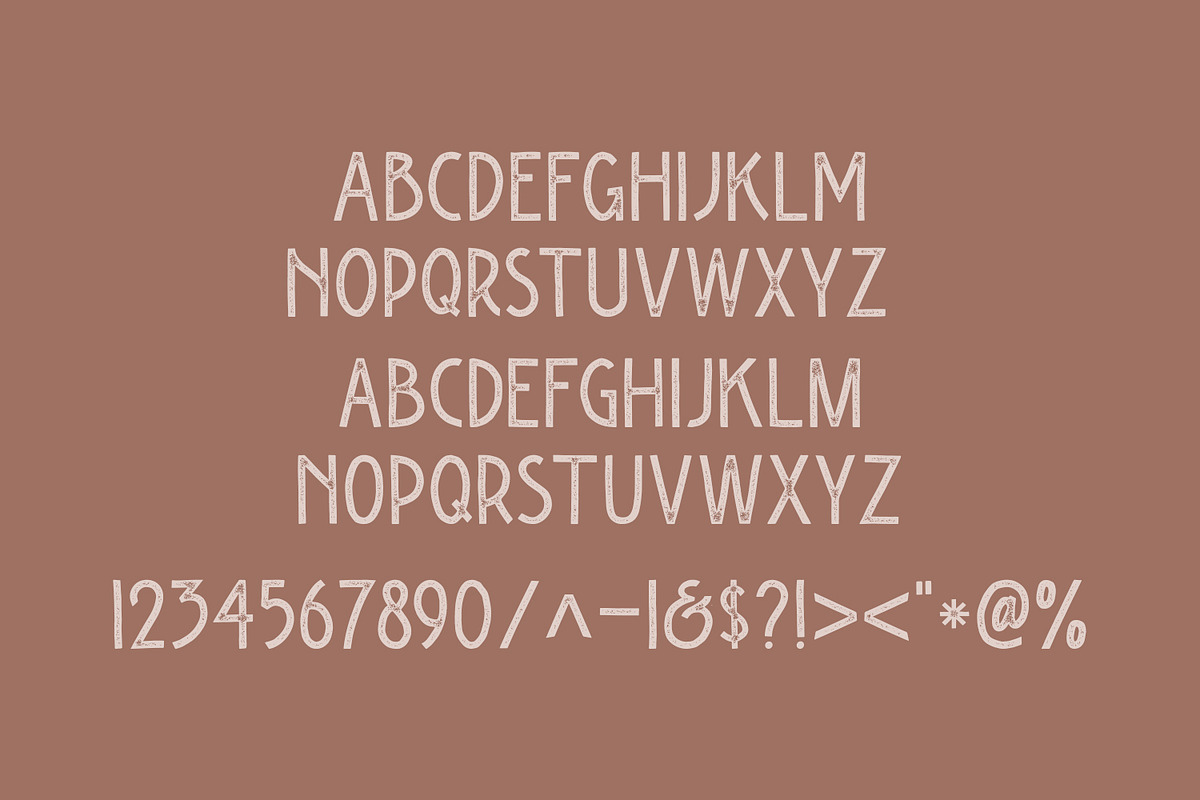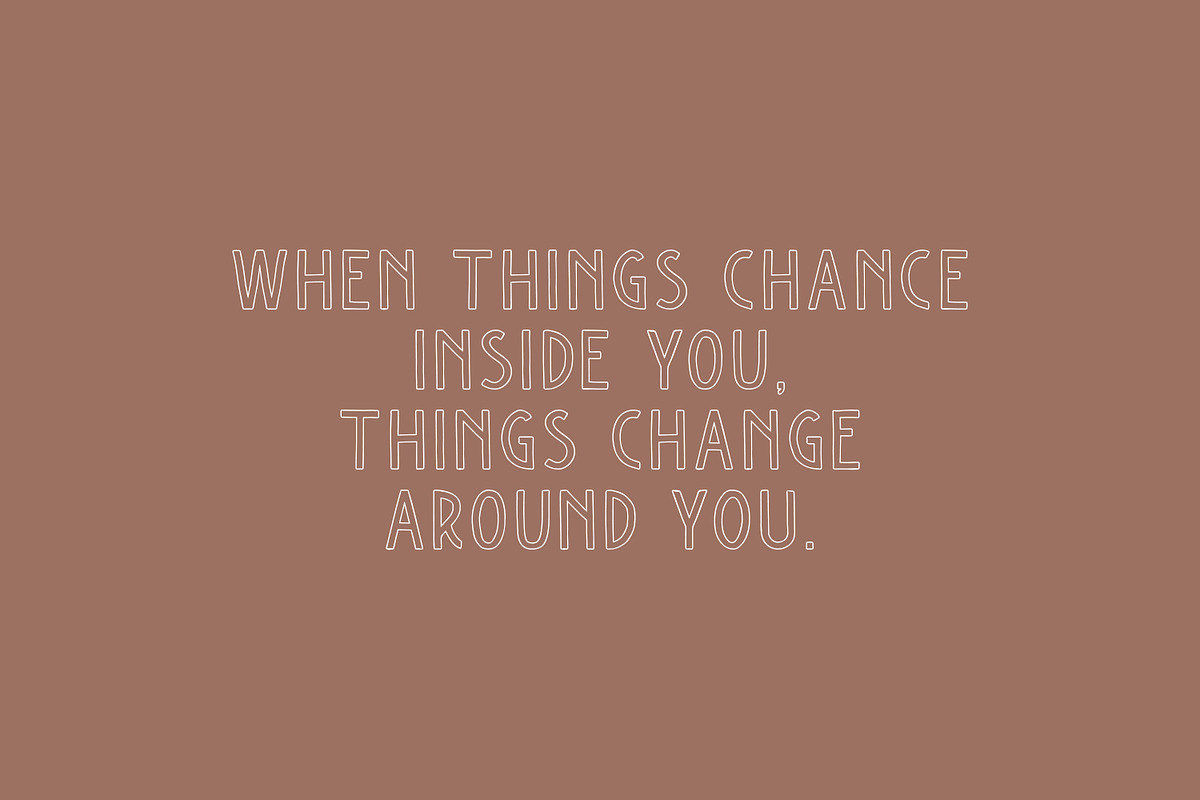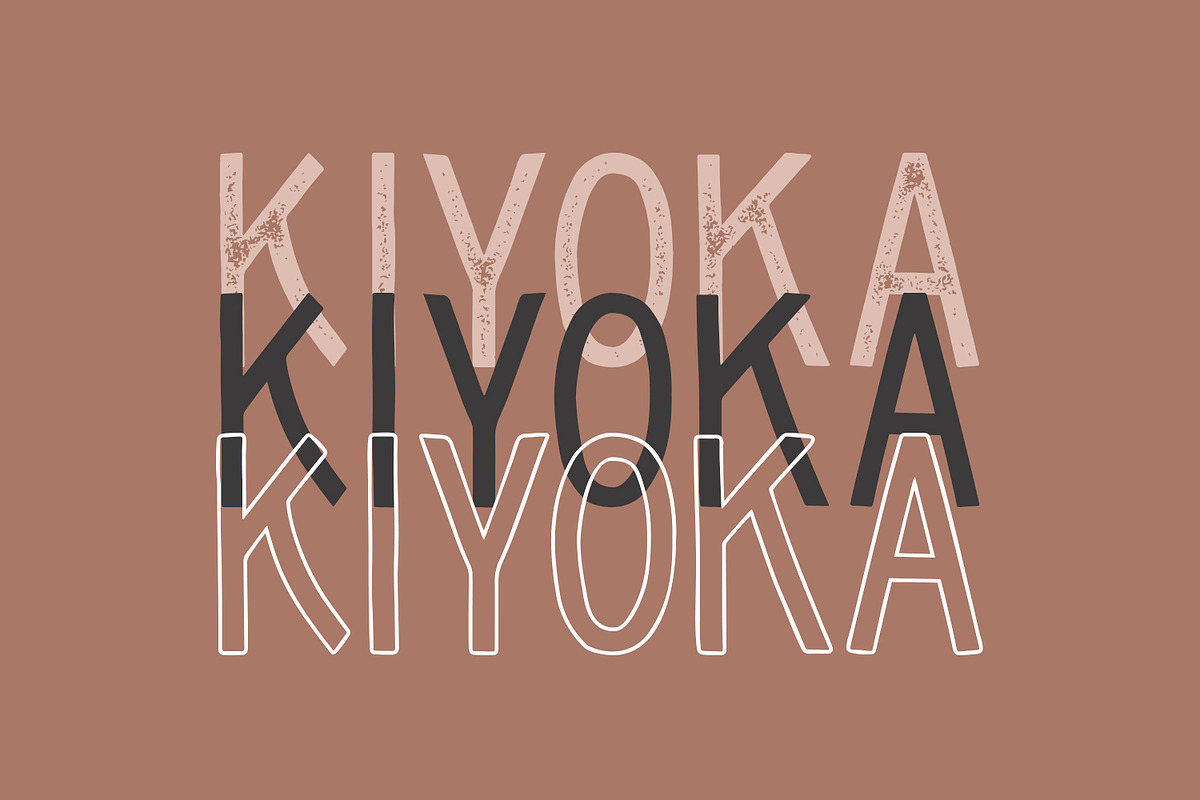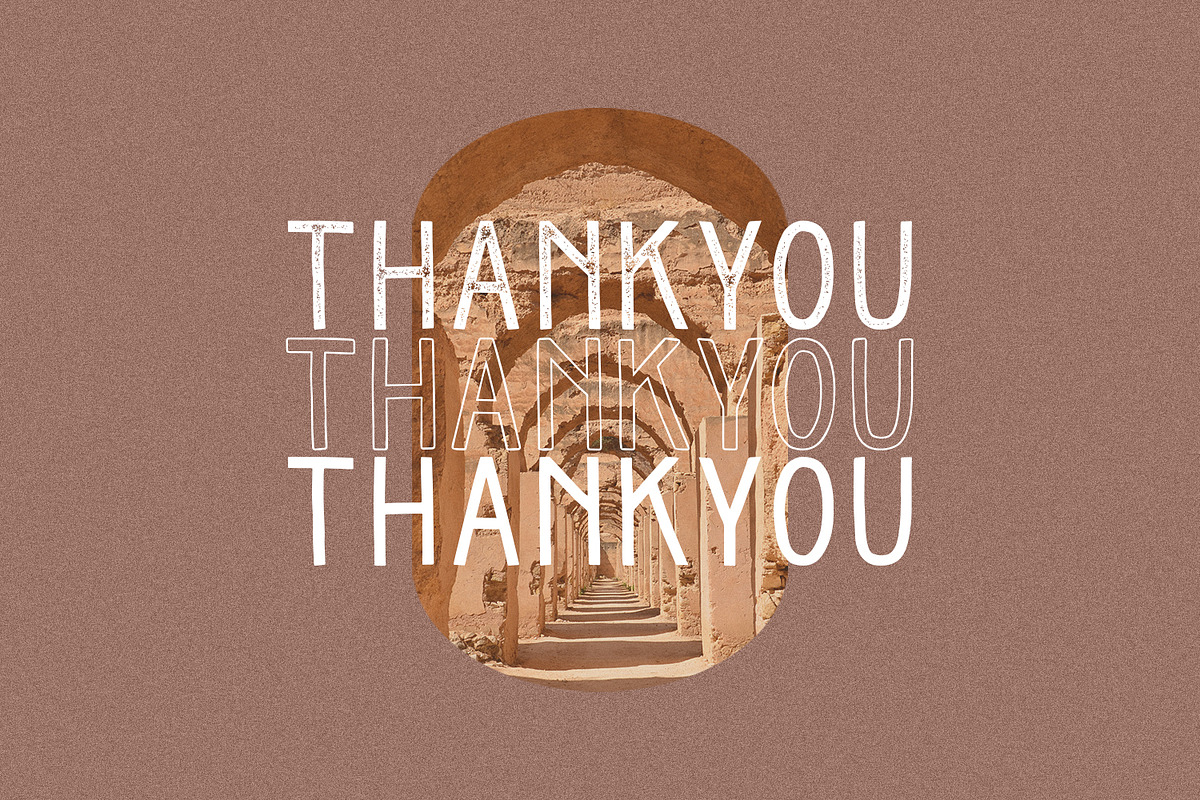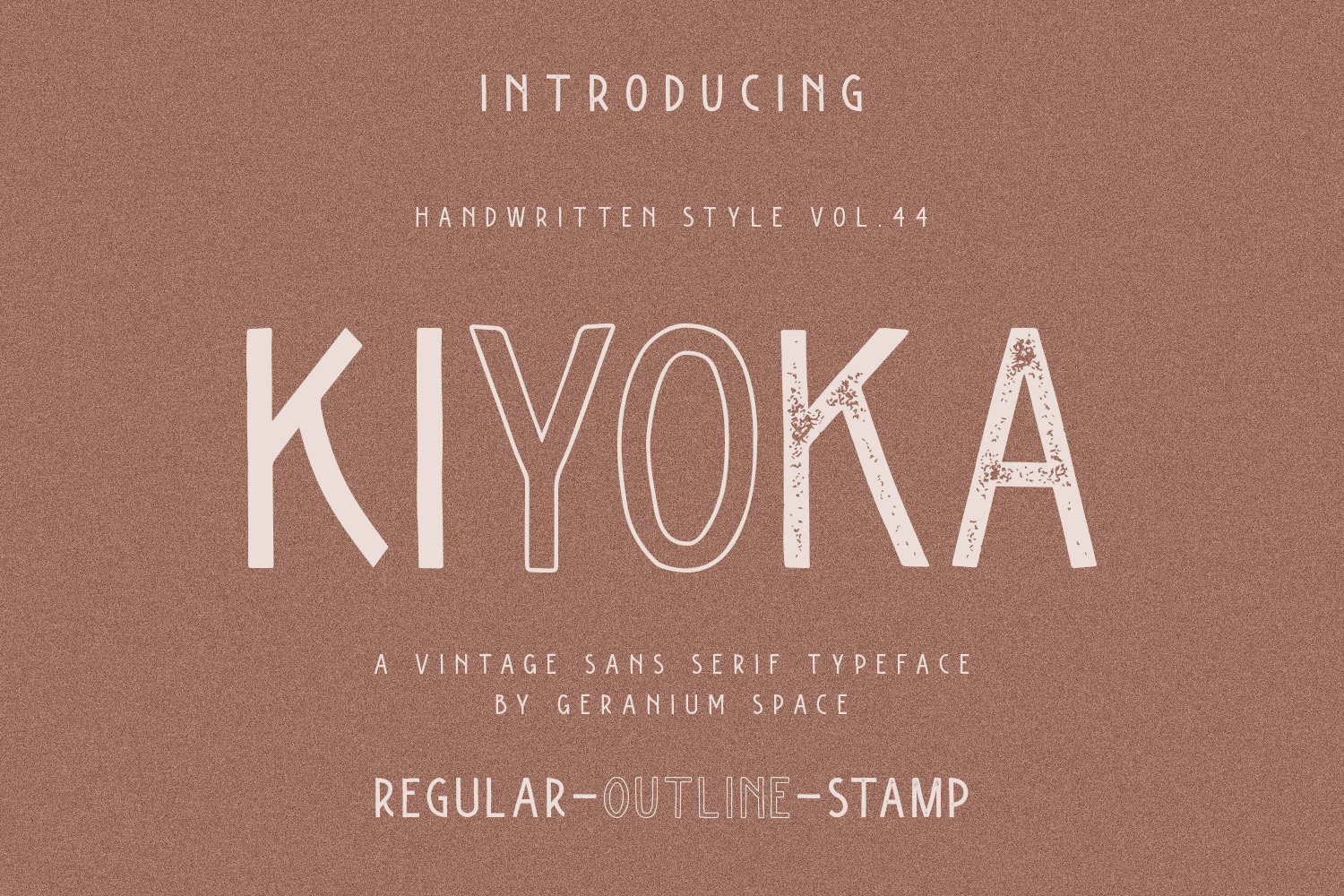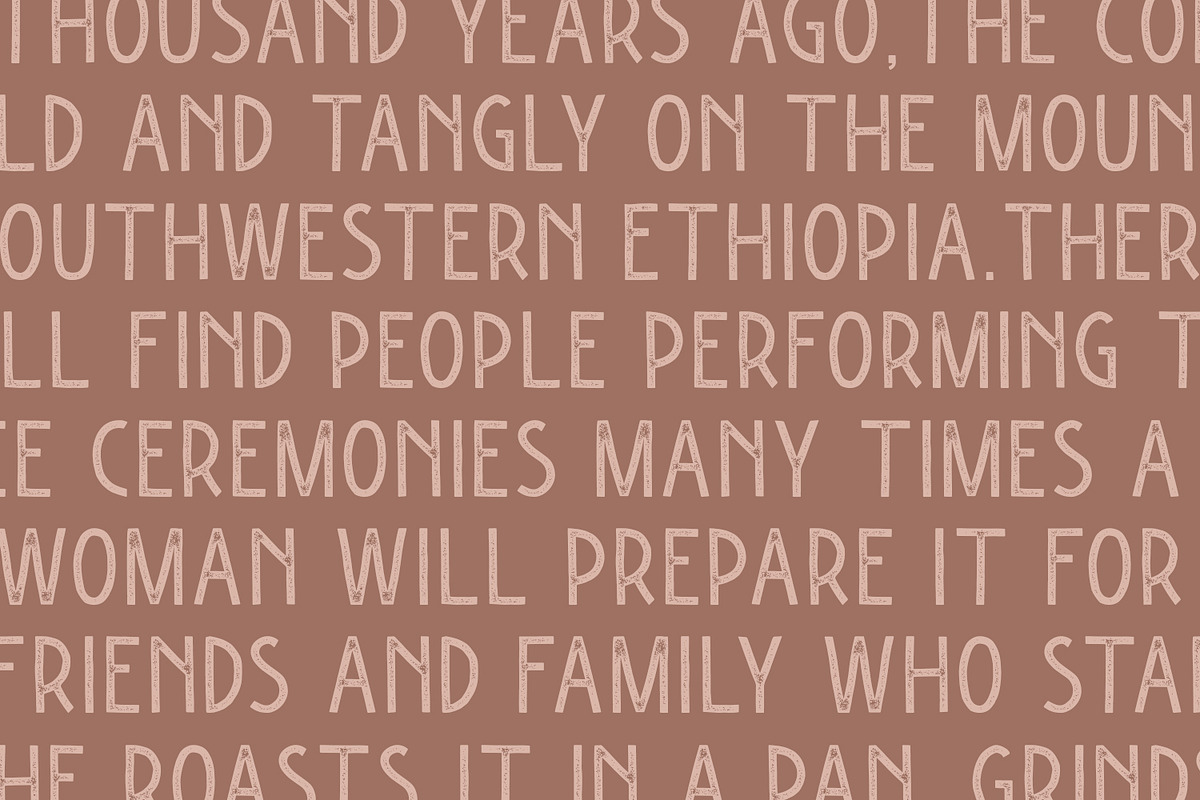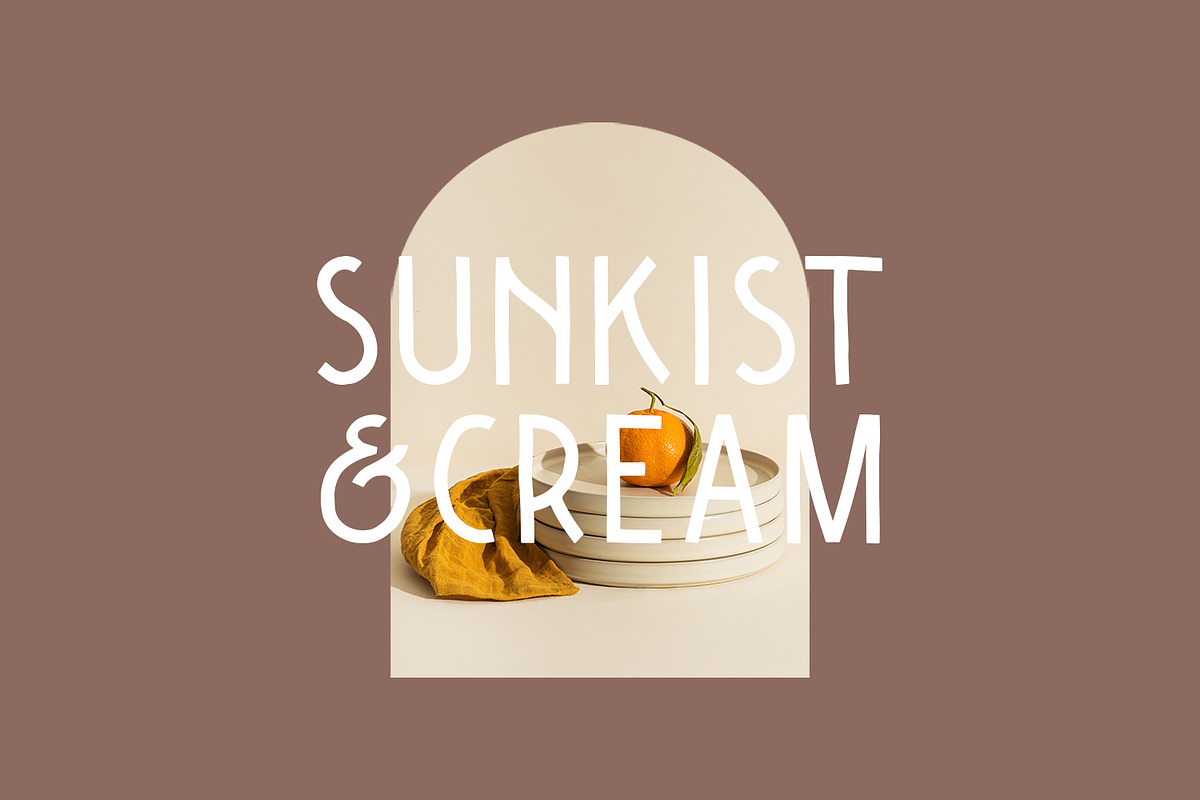
Kiyoka - A Vintage Sans Typeface
Introducing Kiyoka - A Vintage Sans with all caps. Kiyoka has 3 styles such as regular, stamp, and outline. where you can feel a vintage feel when using regular and stamp types, but also can feel a modern feel when using the outline type.